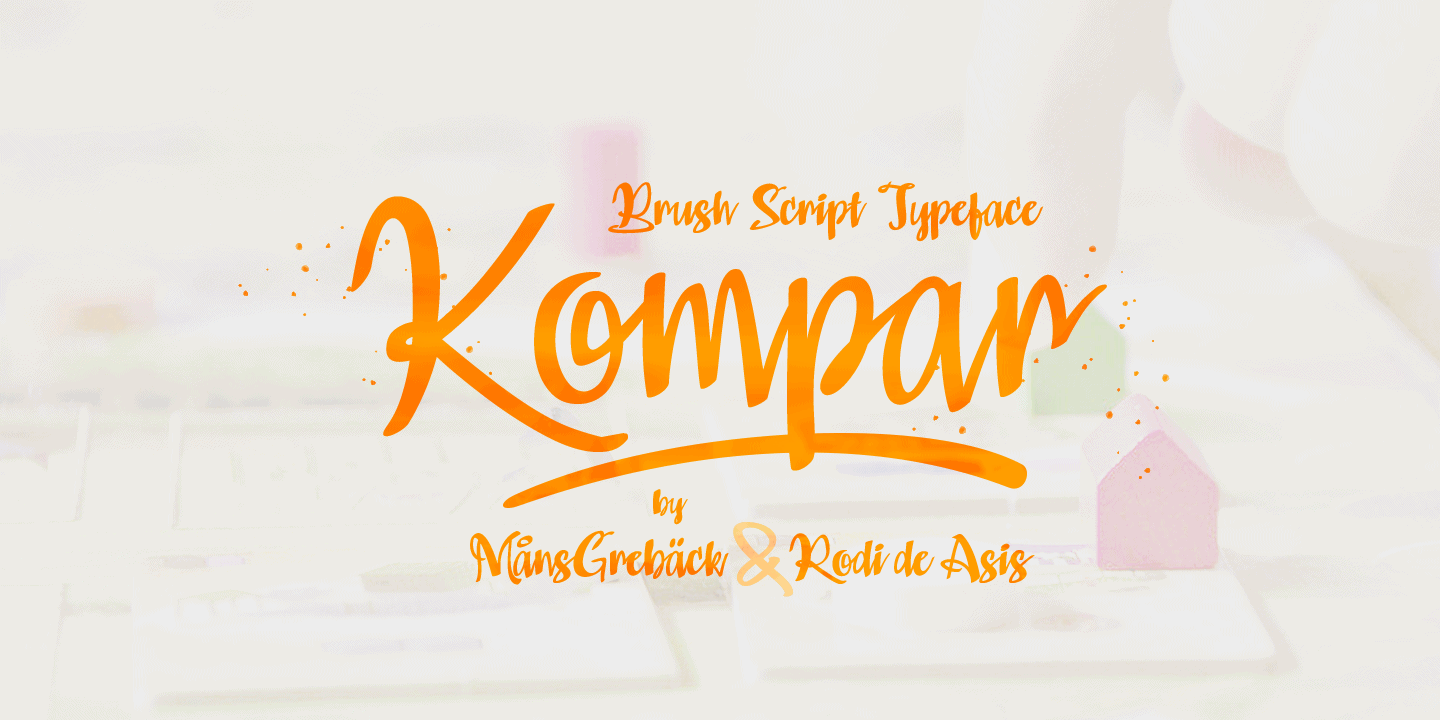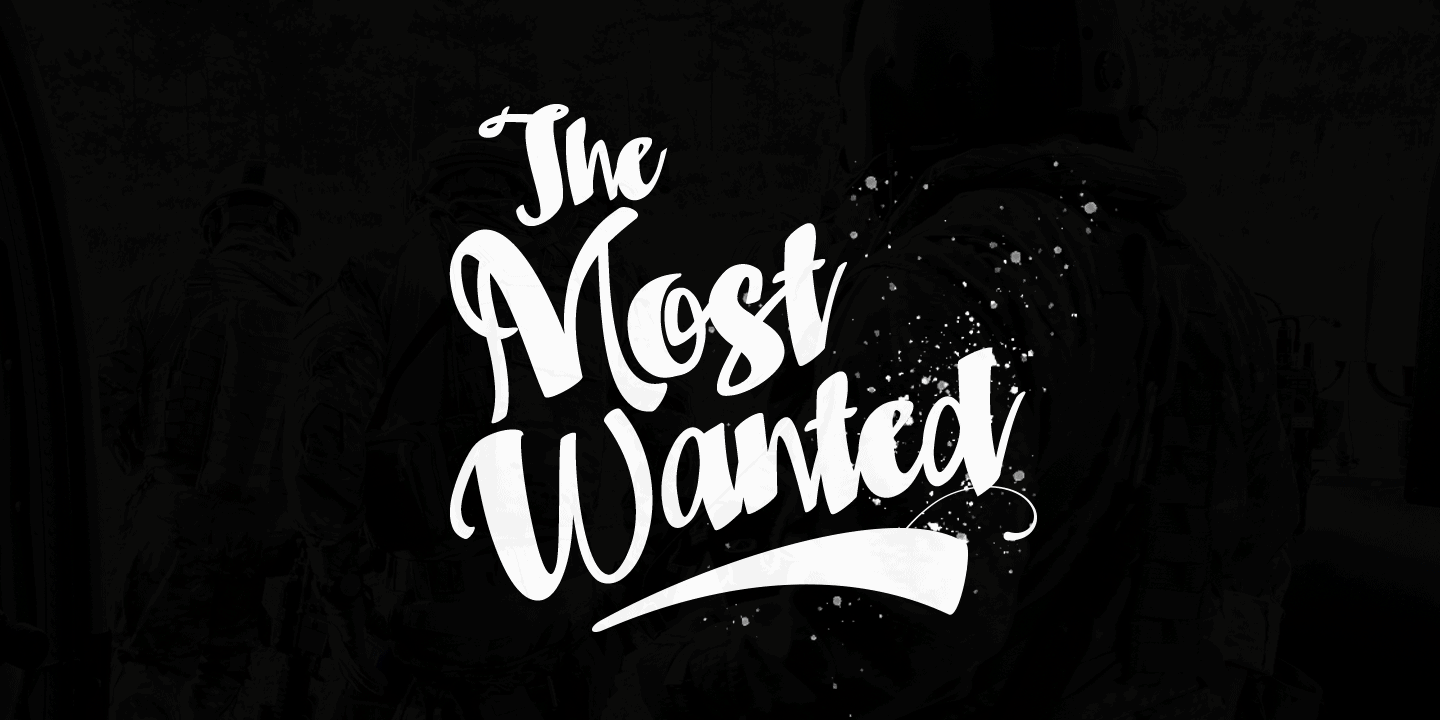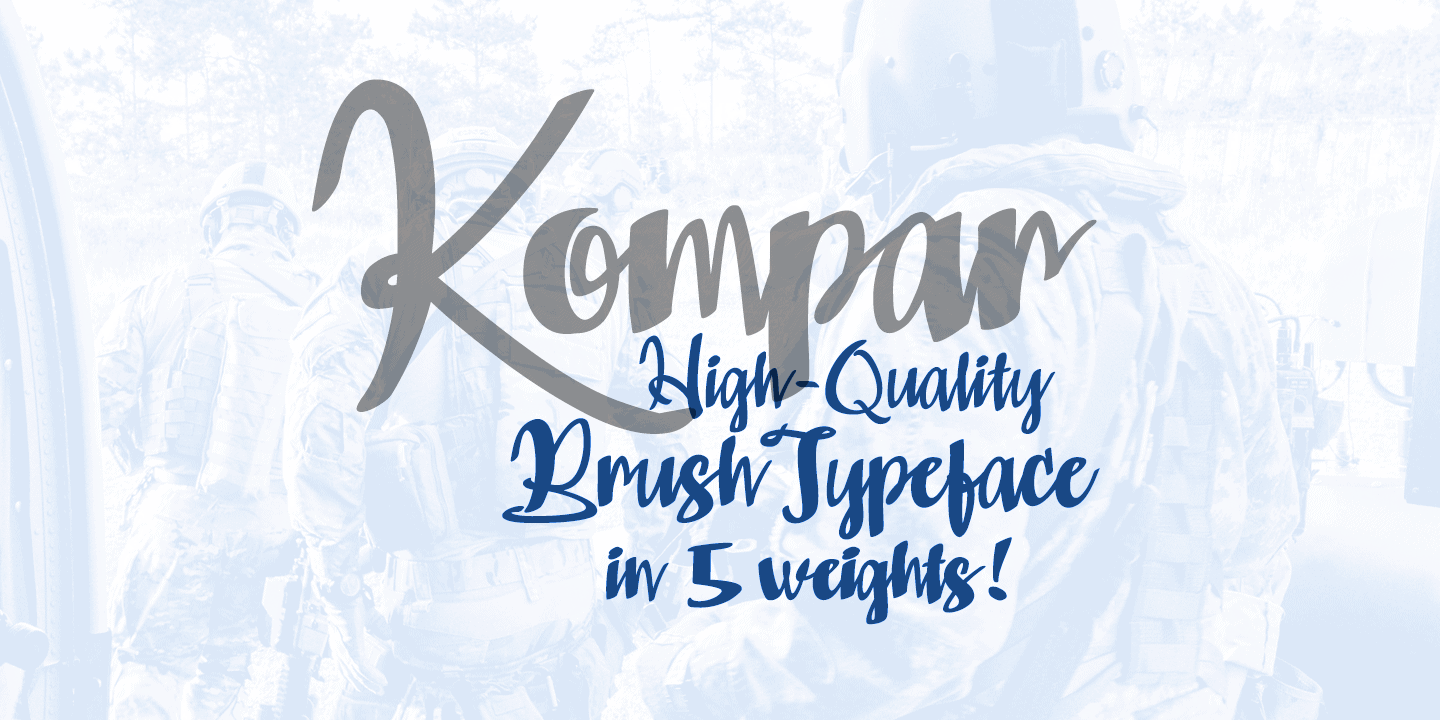
Kompar
Kompar is a hand-drawn brush typeface family, designed and created during 2018 by Rodi de Asis and Måns Grebäck.
It has a confident script style, with movements inspired by the brushstrokes of watercolor.
As a high-quality font, this typeface comes in five complimentary weights:
Kompar Thin, Kompar Light, Kompar Medium, Kompar Bold and Kompar Black.
The font contains a wide range of characters and support for hundreds of languages.